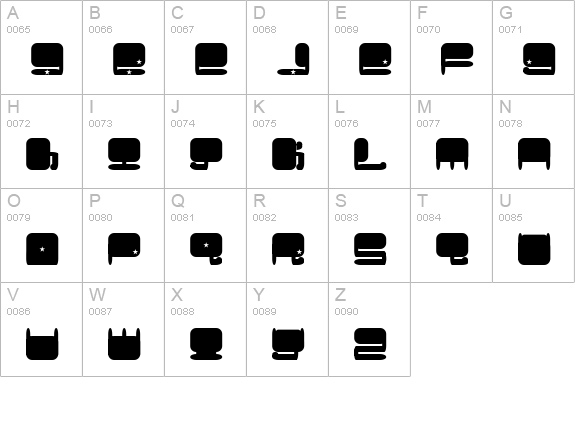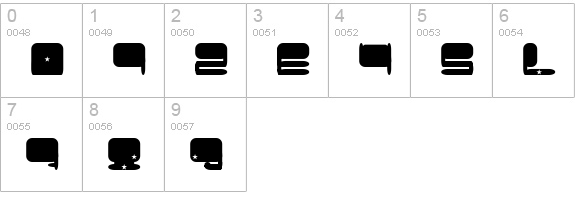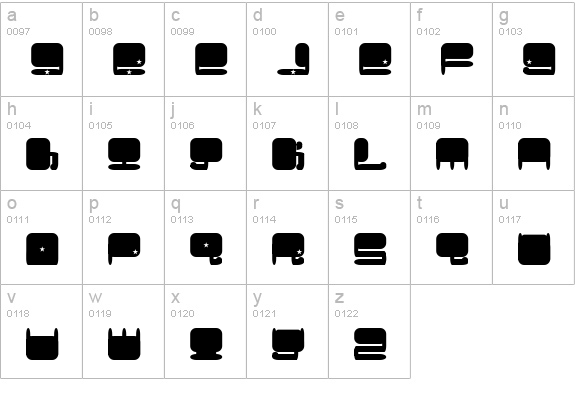
Plumbum Font Details
Plumbum font is a modern and elegant typeface that exudes sophistication and style. With its sleek lines and stylish curves, Plumbum is perfect for a variety of design projects, from branding to packaging to editorial design. This versatile font is sure to make your text stand out and grab attention. Best of all, Plumbum font is available for free download at FontsMarket.com. You can easily access this stunning font and elevate your designs without breaking the bank. Don't miss out on the opportunity to add this beautiful typeface to your collection and take your design projects to the next level. Download Plumbum font today and let your creativity shine!